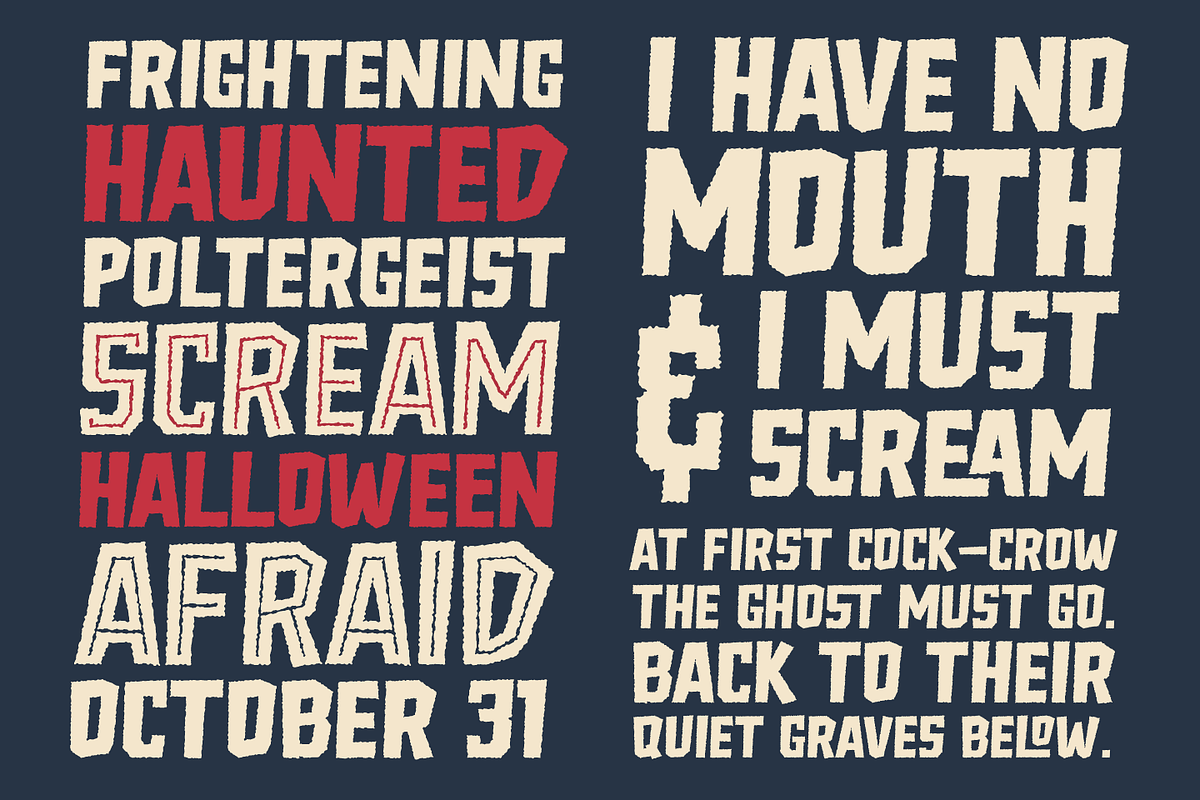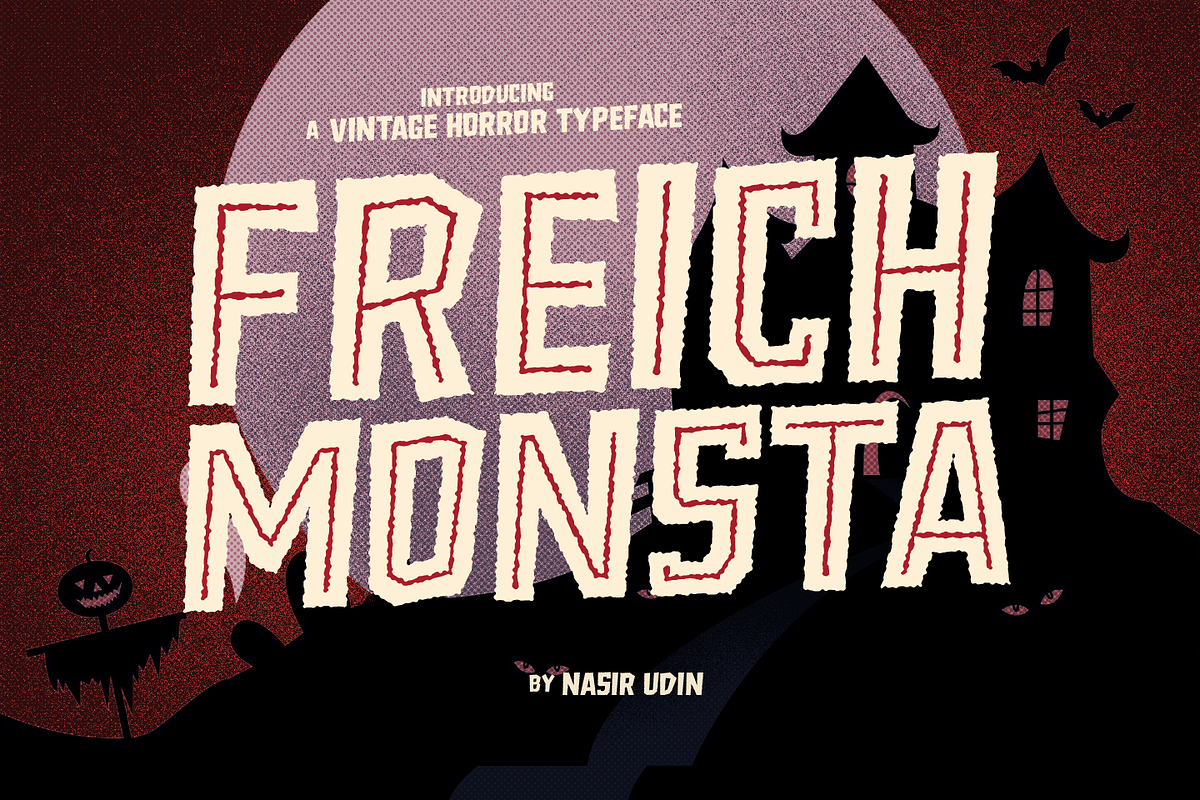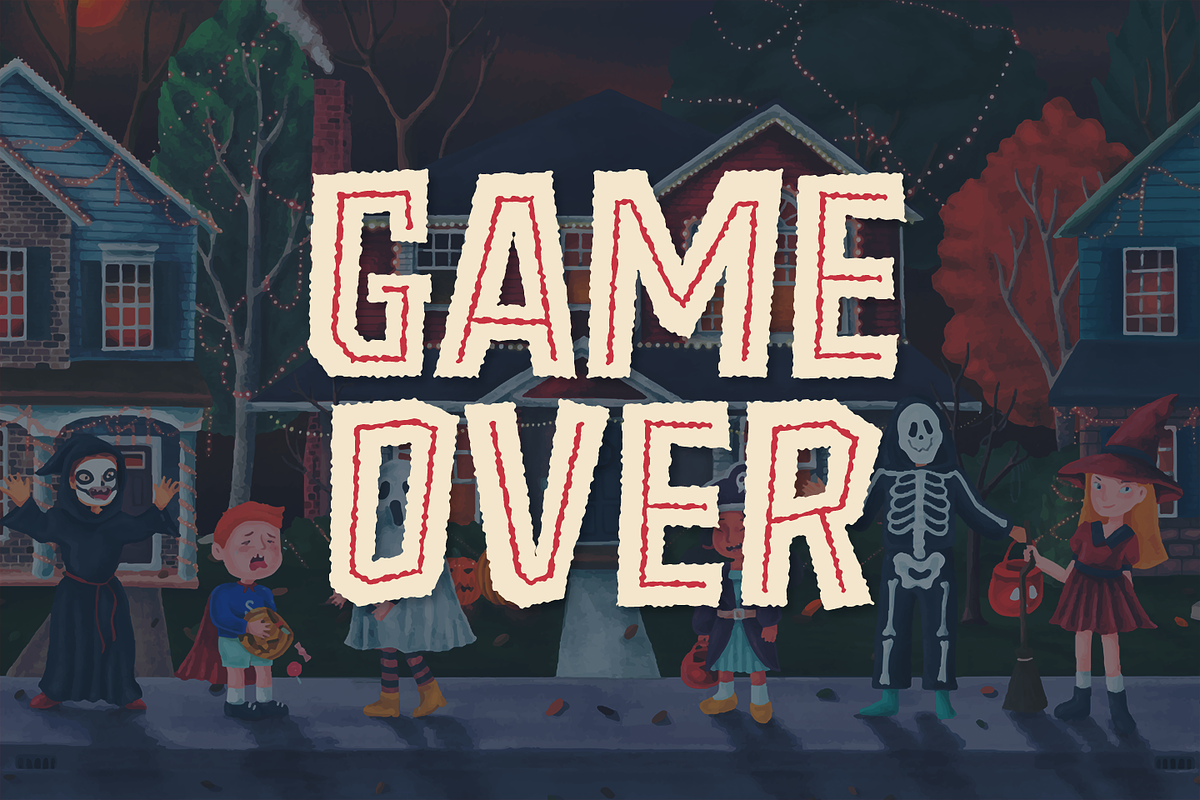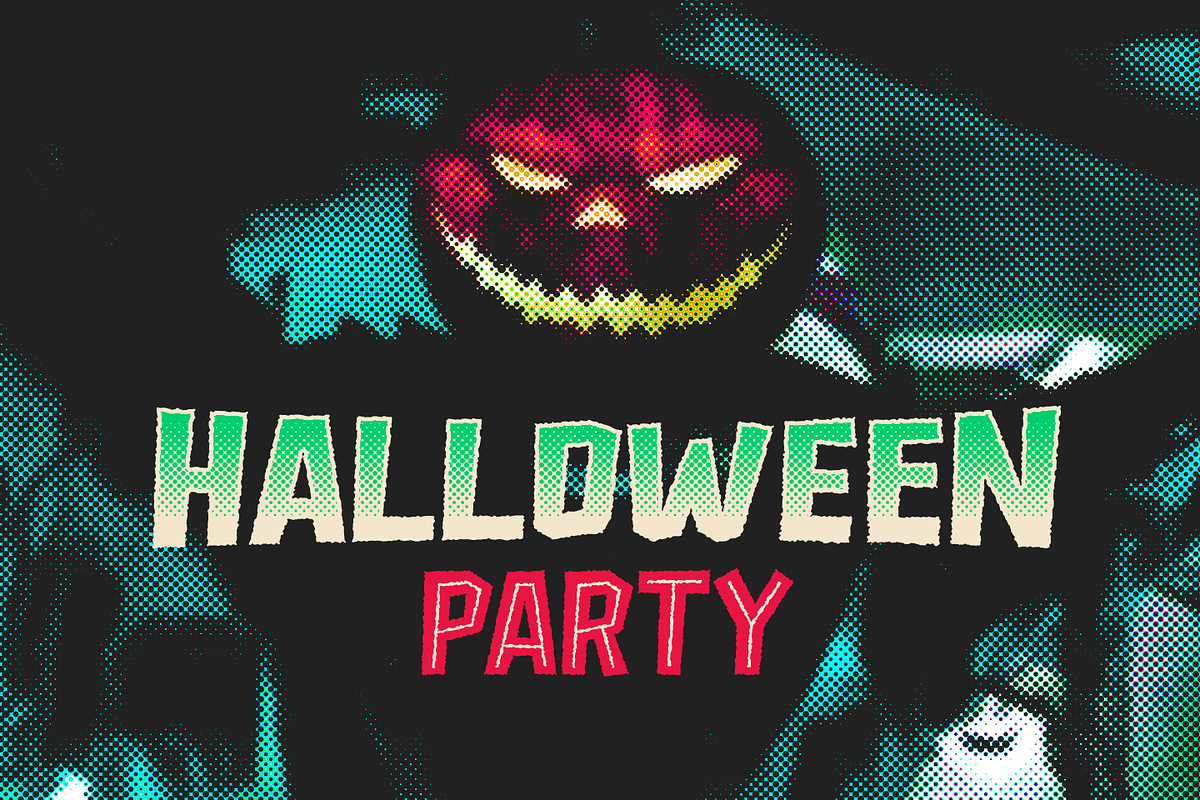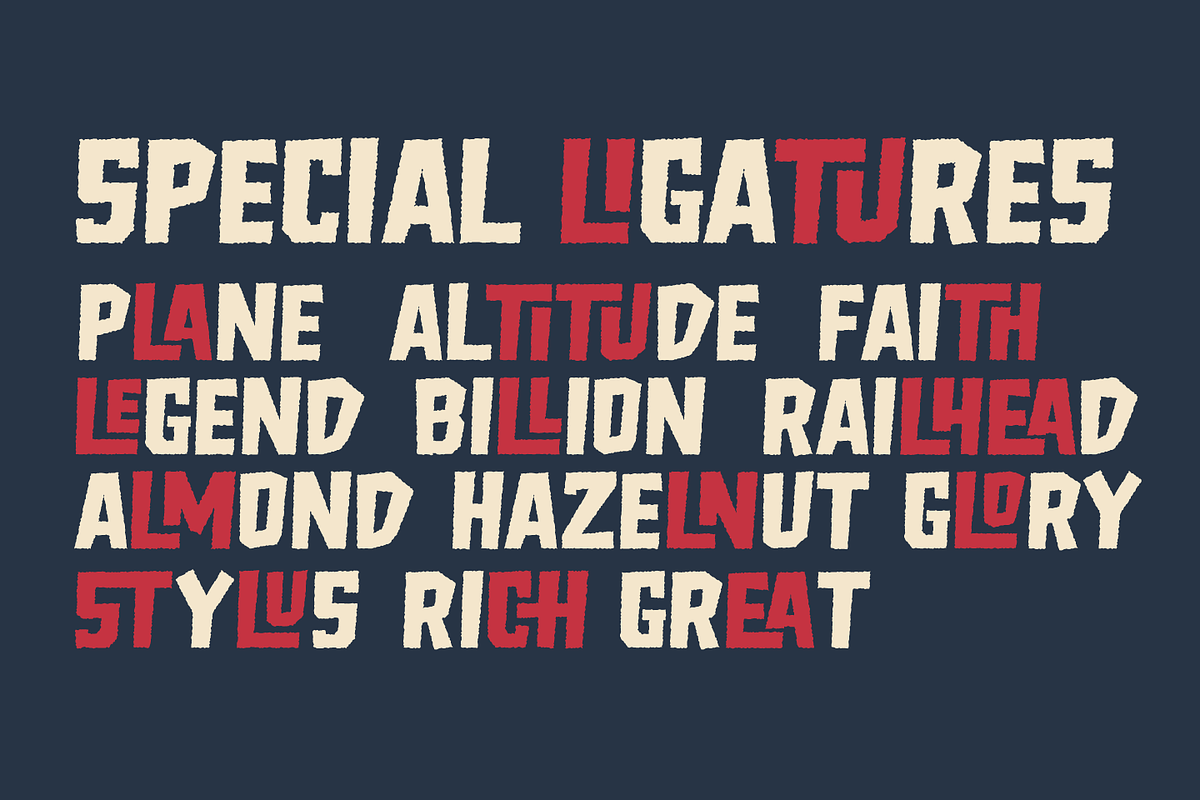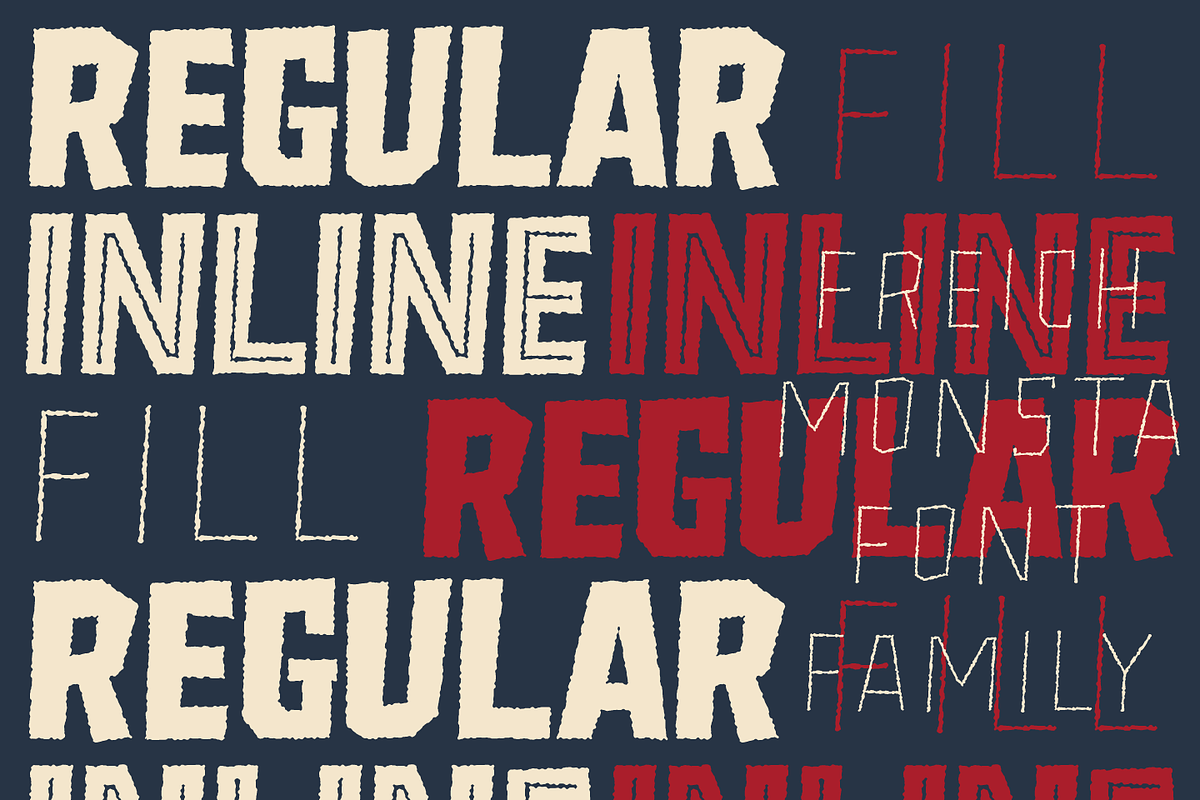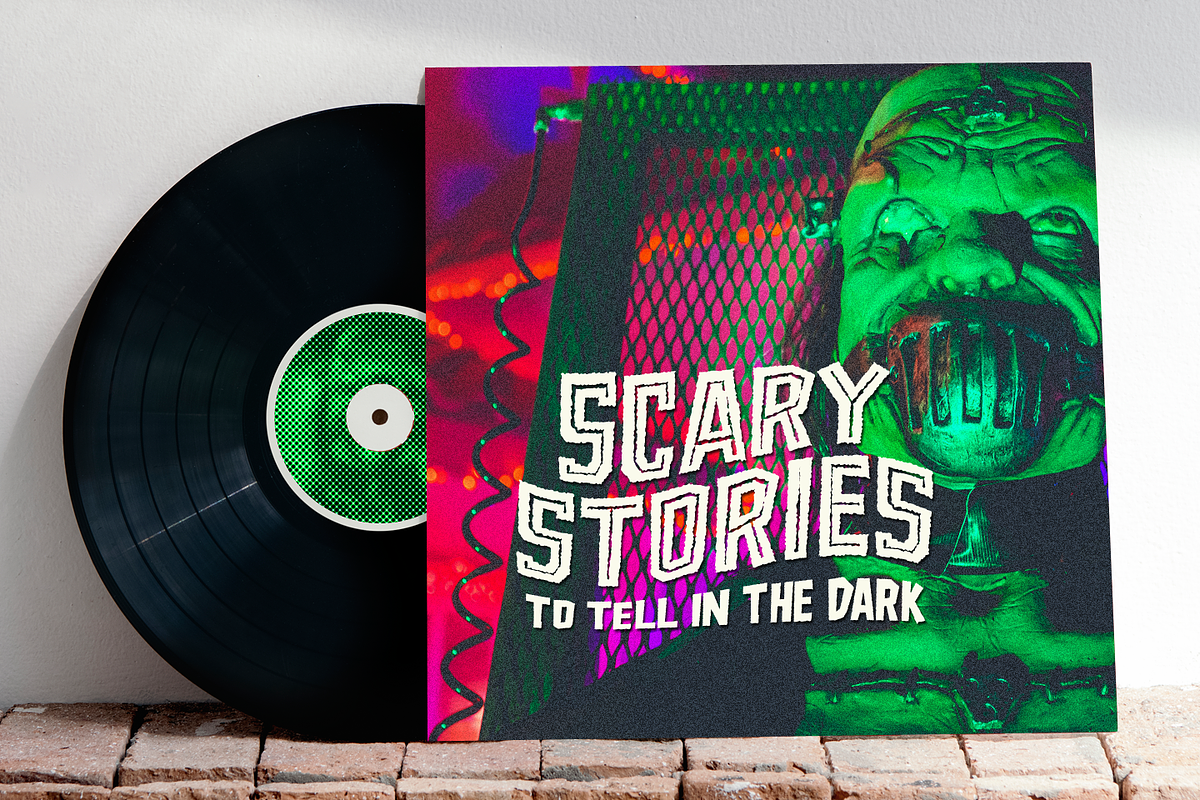
Freich Monsta - Vintage Horror Fonts
Trick or treat! The spookiest time of the year will be here soon! Spread the Halloween spirit with this chilling, creepy, and scary typeface, Freich Monsta!
Freich Monsta is an evolution of my previous font - Freich ( https://crmrkt.com/eRkJqP ). It's mutated from a clean, strong, and bold font to a spooky display font with a vintage horror twist.
- 346 glyphs
- Special Ligatures: CH EA LA LE LH LI LL LM LN LO LU ST TH TI TU